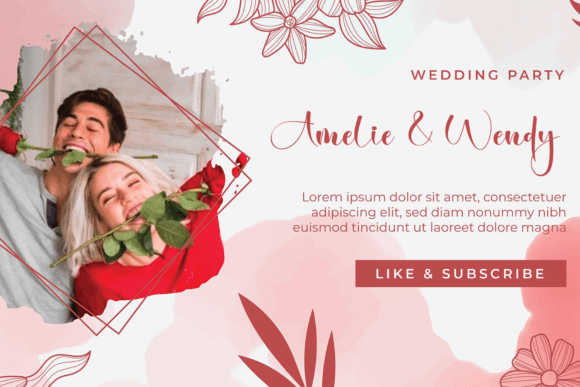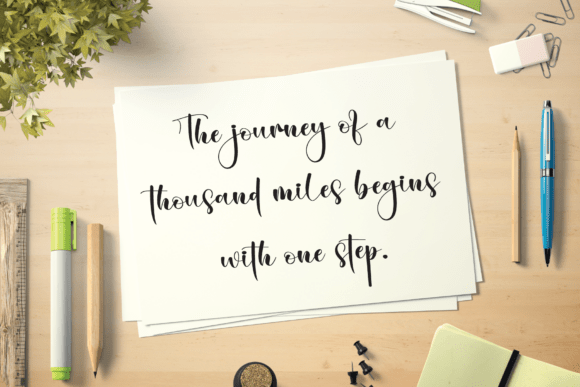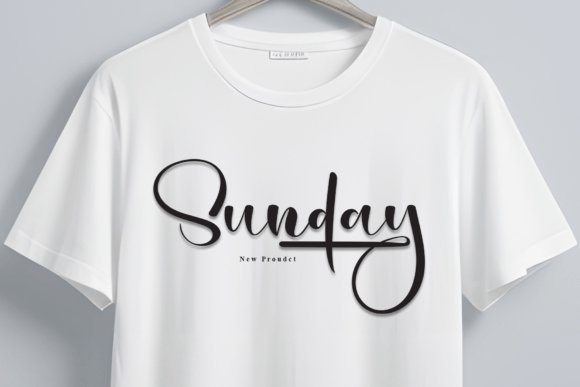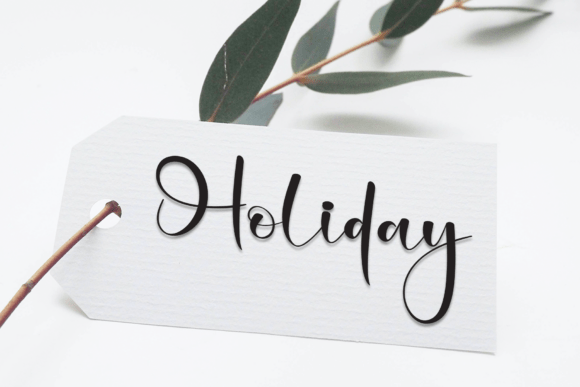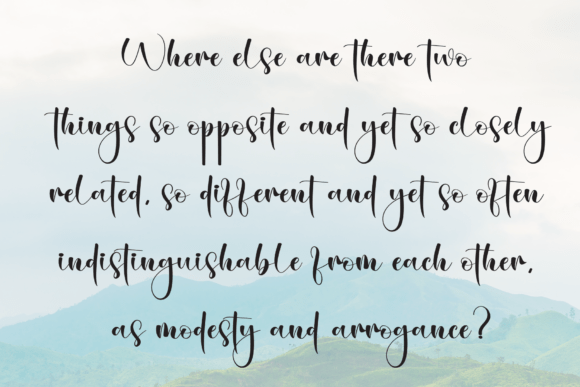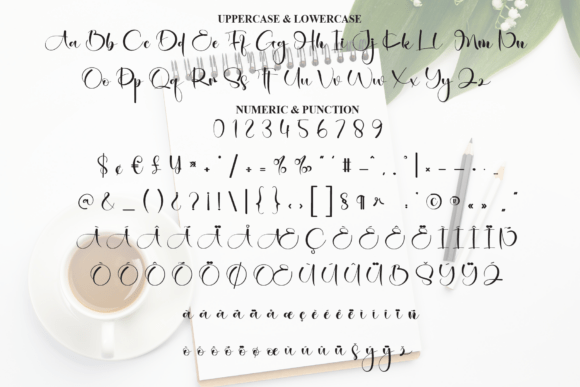
Introducing Diary Font: Elevate Your Designs with Elegance and Charm
In the world of typography, few fonts manage to capture the essence of elegance and charm as effortlessly as Diary Font. This stylish script handwritten font is designed to bring a touch of sophistication and warmth to any design project. With its elegant curves and natural flow, Diary Font is perfect for a wide range of applications, from branding and invitations to logos and more.
The Characteristics of Diary Font
Diary Font stands out with its unique blend of classic elegance and modern flair. Its key characteristics include:
- Elegant Curves: The font features smooth, flowing curves that give it a luxurious and refined appearance.
- Natural Flow: The letters seem to flow naturally into one another, creating a sense of movement and fluidity.
- Handwritten Touch: Despite its elegance, Diary Font retains a handwritten feel, adding a personal touch to any design.
- Versatility: It is highly versatile, suitable for both formal and casual designs.
Uses of Diary Font
The versatility of Diary Font makes it an excellent choice for various design projects. Here are some of the ways you can use this beautiful font:
- Wedding Invitations: Add a touch of romance and elegance to your wedding invitations, making them truly unforgettable.
- Branding: Use Diary Font to create a sophisticated and memorable brand identity that stands out from the competition.
- Greeting Cards: Whether it’s a birthday, anniversary, or holiday card, Diary Font adds a personal and heartfelt touch.
- Logos: Create a logo that exudes elegance and professionalism with Diary Font.
- Social Media Posts: Elevate your social media content with stylish text that captures attention and conveys your message with charm.
Why Choose Diary Font?
There are several reasons why Diary Font should be your go-to choice for your typography needs:
- Unique Style: Its distinctive style ensures that your designs stand out in a crowded digital landscape.
- Emotional Connection: The handwritten nature of the font creates an emotional connection with your audience, making your designs more relatable.
- Easy to Read: Despite its elegant and cursive nature, Diary Font remains highly legible, ensuring your message is always clear.
- Customizable: You can easily customize the font to fit your brand’s color scheme and style, ensuring consistency across all your designs.
Tips for Using Diary Font Effectively
To get the most out of Diary Font, consider the following tips:
- Pair with Complementary Fonts: Use Diary Font in combination with sans-serif fonts for a balanced and modern look.
- Adjust Letter Spacing: Experiment with letter spacing to enhance readability and aesthetic appeal.
- Play with Colors: While the font itself is elegant, you can further enhance it by choosing colors that match your brand or design theme.
- Use it Sparingly: For maximum impact, use Diary Font sparingly. It can be particularly effective as a headline or accent font.
Diary Font is more than just a font; it’s a design element that can elevate your projects with its elegance, charm, and versatility. Whether you’re a designer working on a client’s branding or a crafter creating personalized invitations, Diary Font offers the perfect blend of sophistication and warmth. By incorporating Diary Font into your designs, you can create visually stunning and emotionally resonant content that leaves a lasting impression.